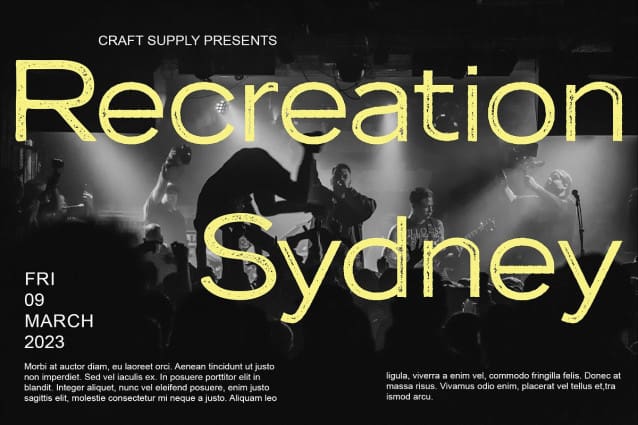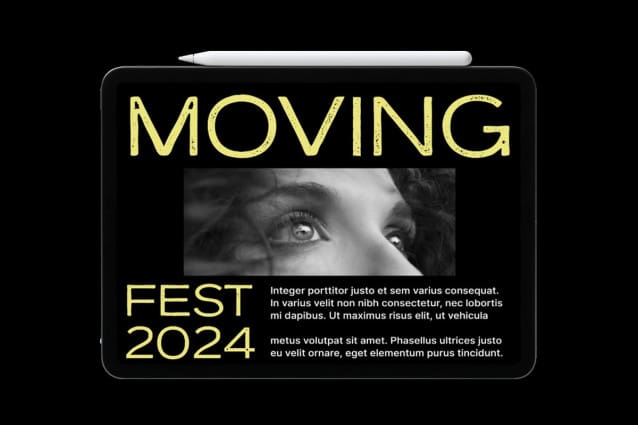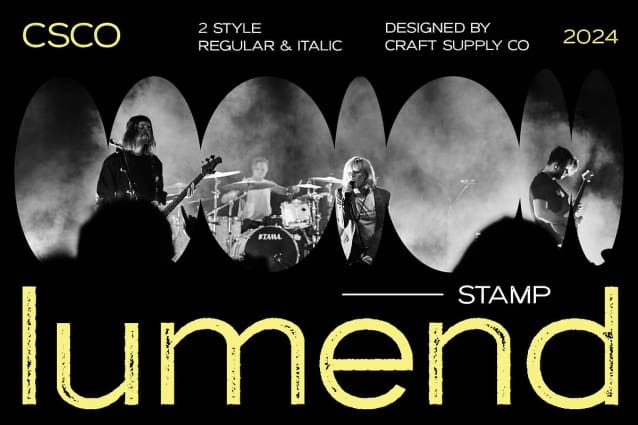
Lumend Stamp Font
Lumend Stamp Font: Adding Vintage Charm to Display Typography. A Clean Sans Serif Lumend Stamp presents a neat sans serif typeface, characterized by its low contrast and tidy appearance. Each letter is meticulously crafted for clarity and legibility.
Vintage Appeal with Stamp Effect Infused with a nostalgic charm, This font features a subtle stamp effect that adds a touch of vintage flair to its modern design. This unique feature makes it perfect for eye-catching display projects.
Tailored for Display Purposes Designed specifically for display purposes, This font excels in grabbing attention. Its clean lines and vintage-inspired aesthetics make it an ideal choice for headlines, banners, and other attention-grabbing designs.
Versatile and Eye-Catching Beyond its vintage appeal, This font offers versatility in application. Whether used in branding, advertising, or digital media, its eye-catching presence ensures that your message stands out effectively.
Where Vintage Meets Modern This font combines the elegance of a clean sans serif with the nostalgic charm of a vintage stamp effect. Tailored for eye-catching display designs, it offers versatility and legibility for various applications. Step into the world of This font and add a touch of vintage sophistication to your projects.